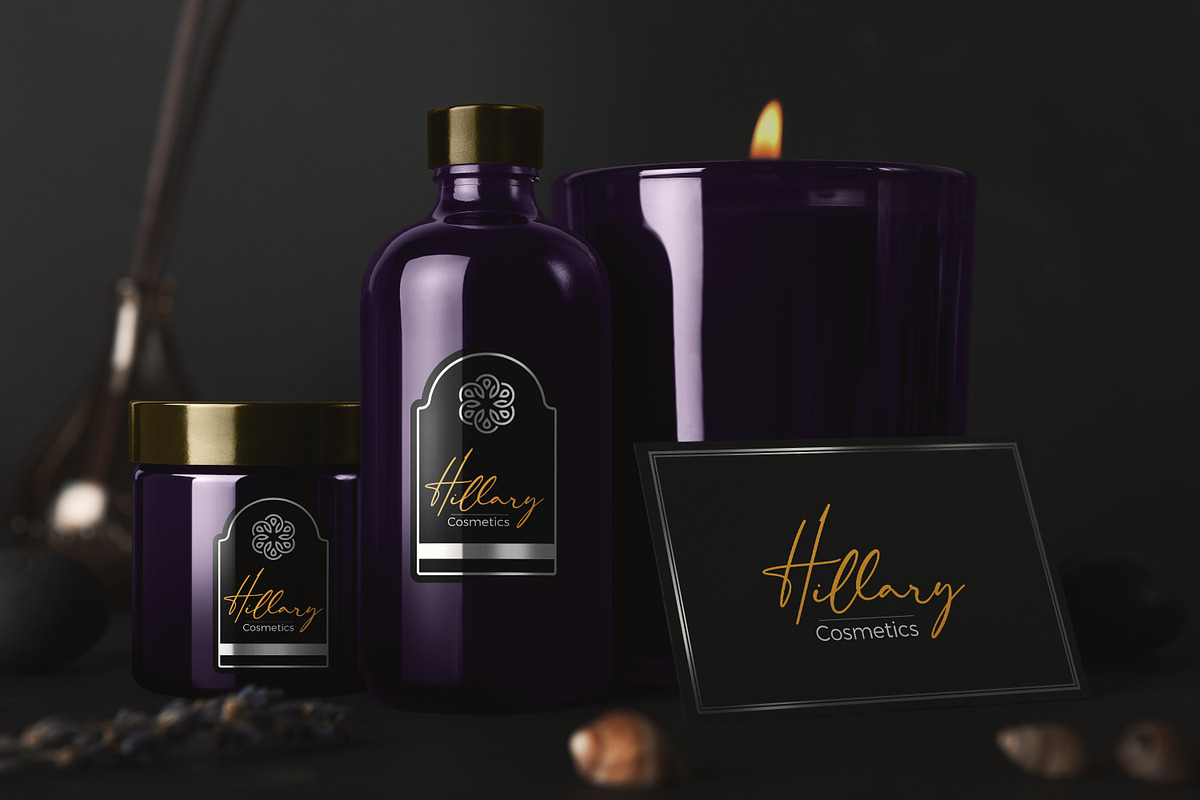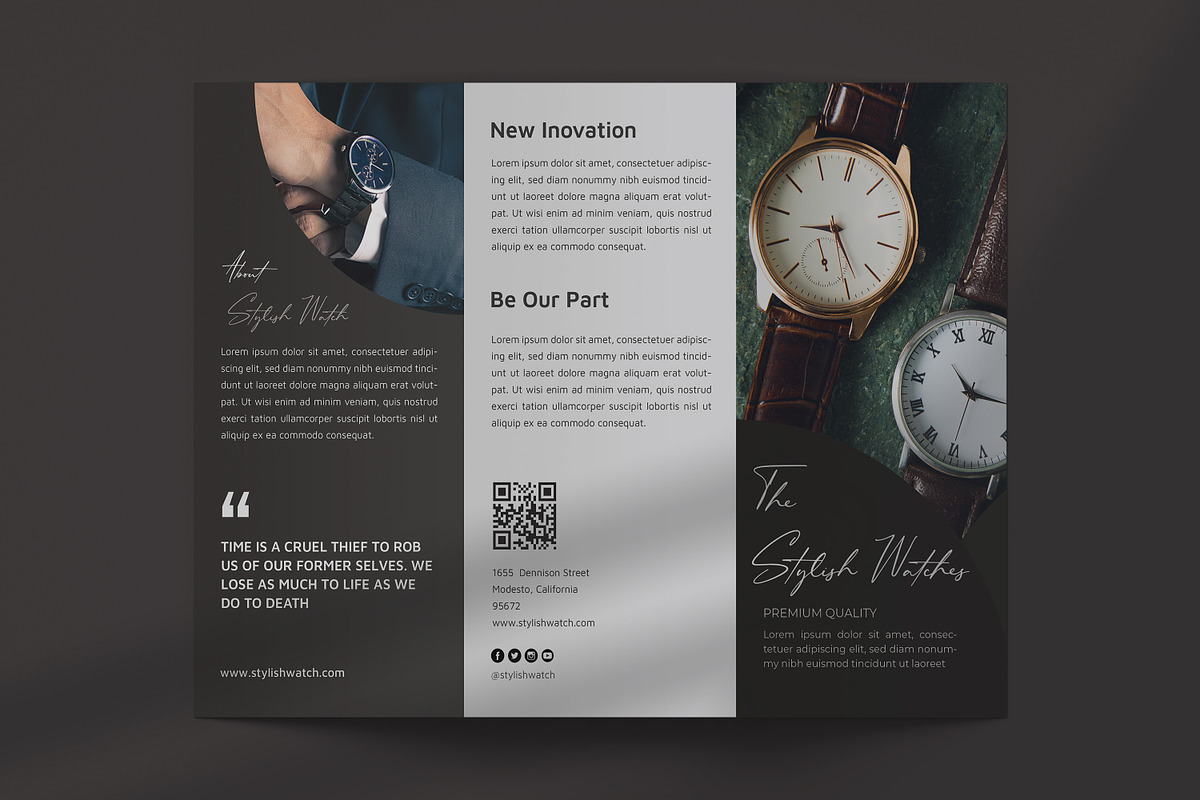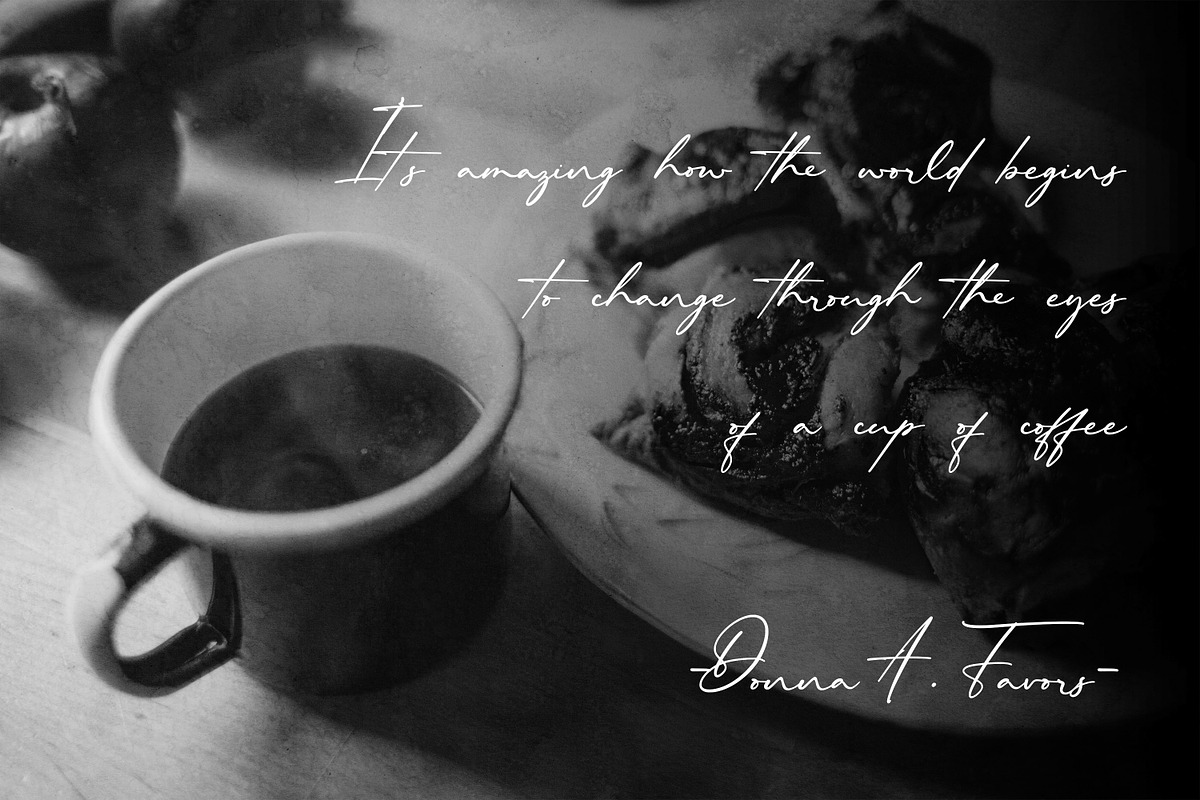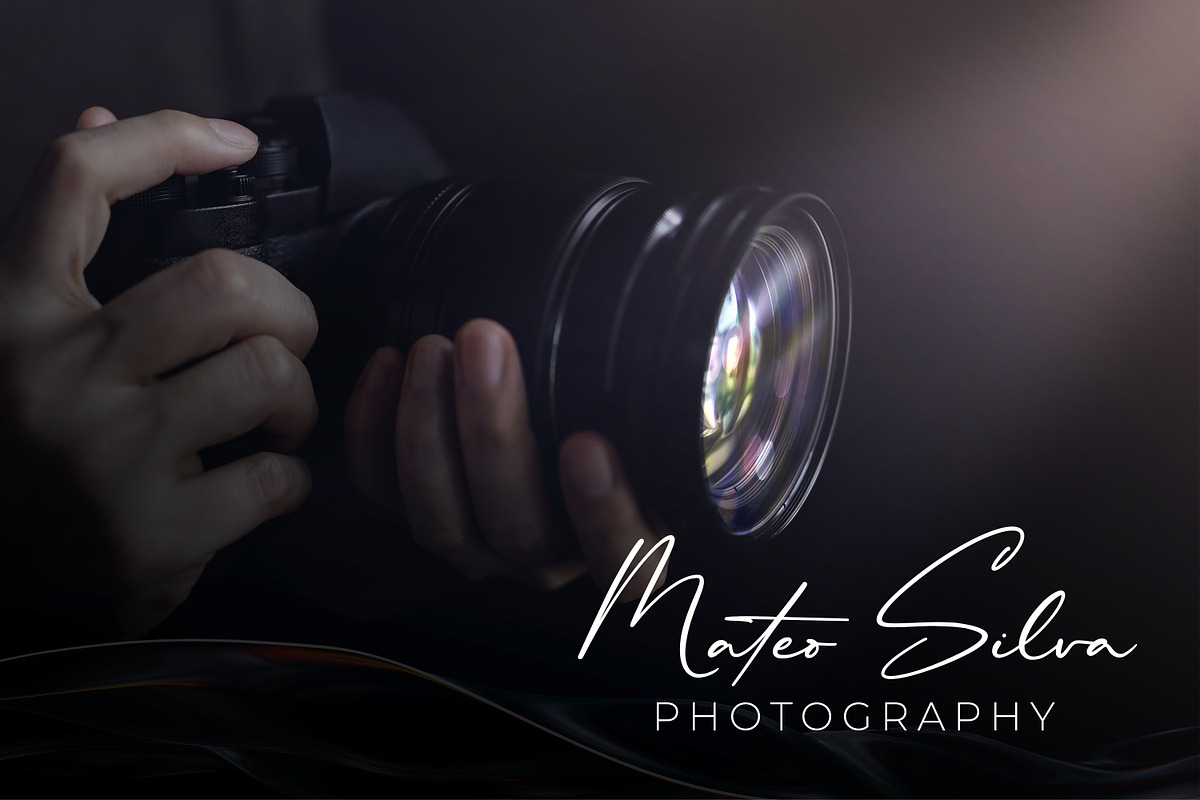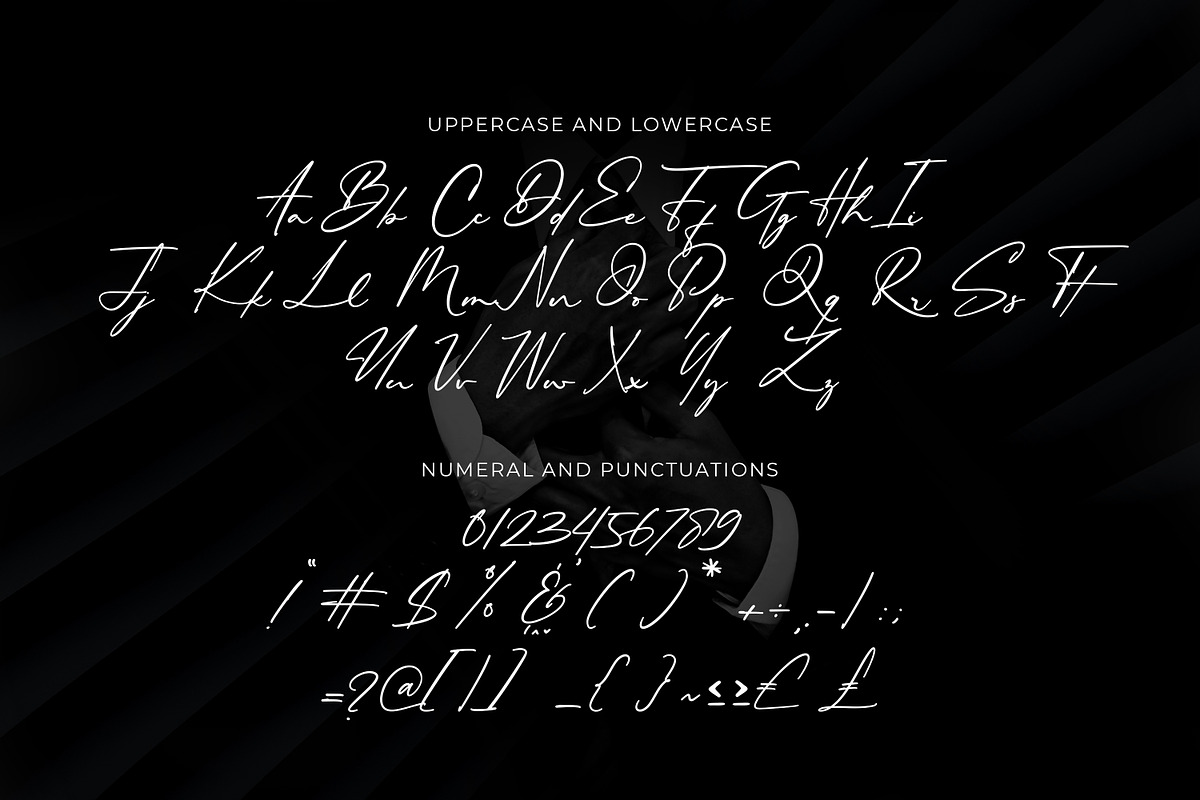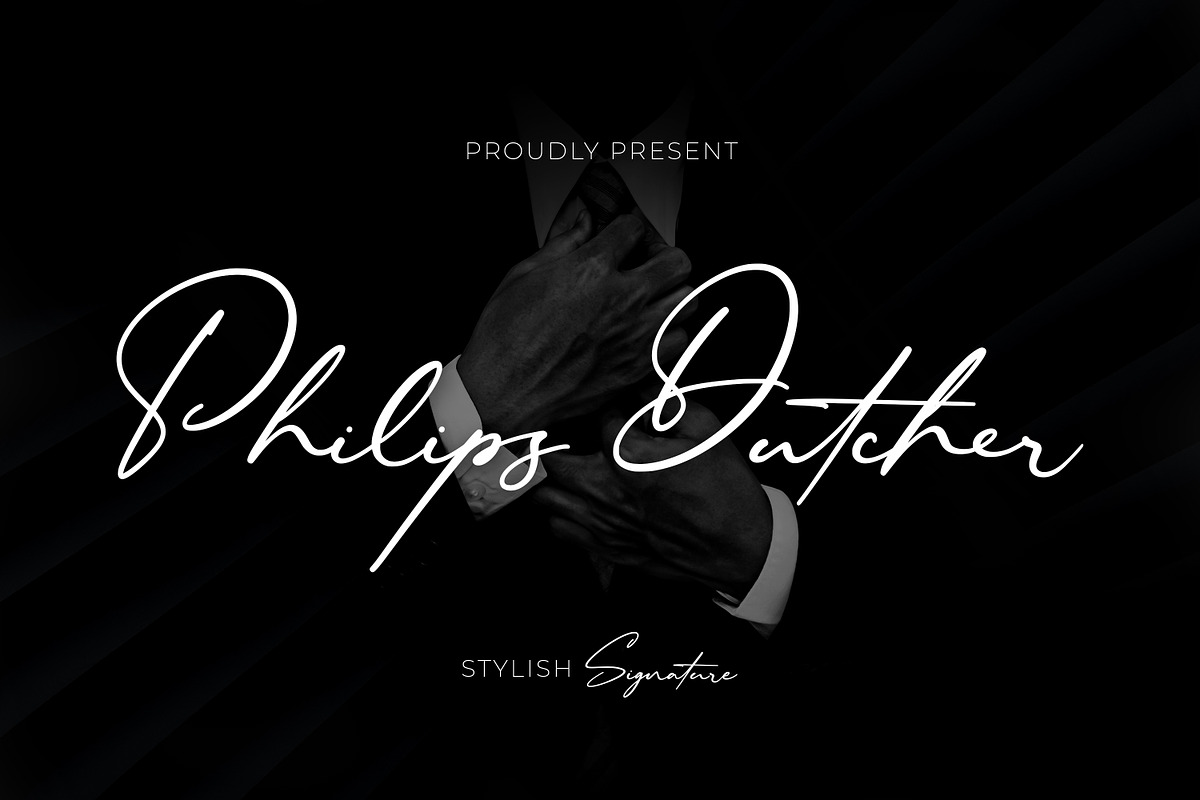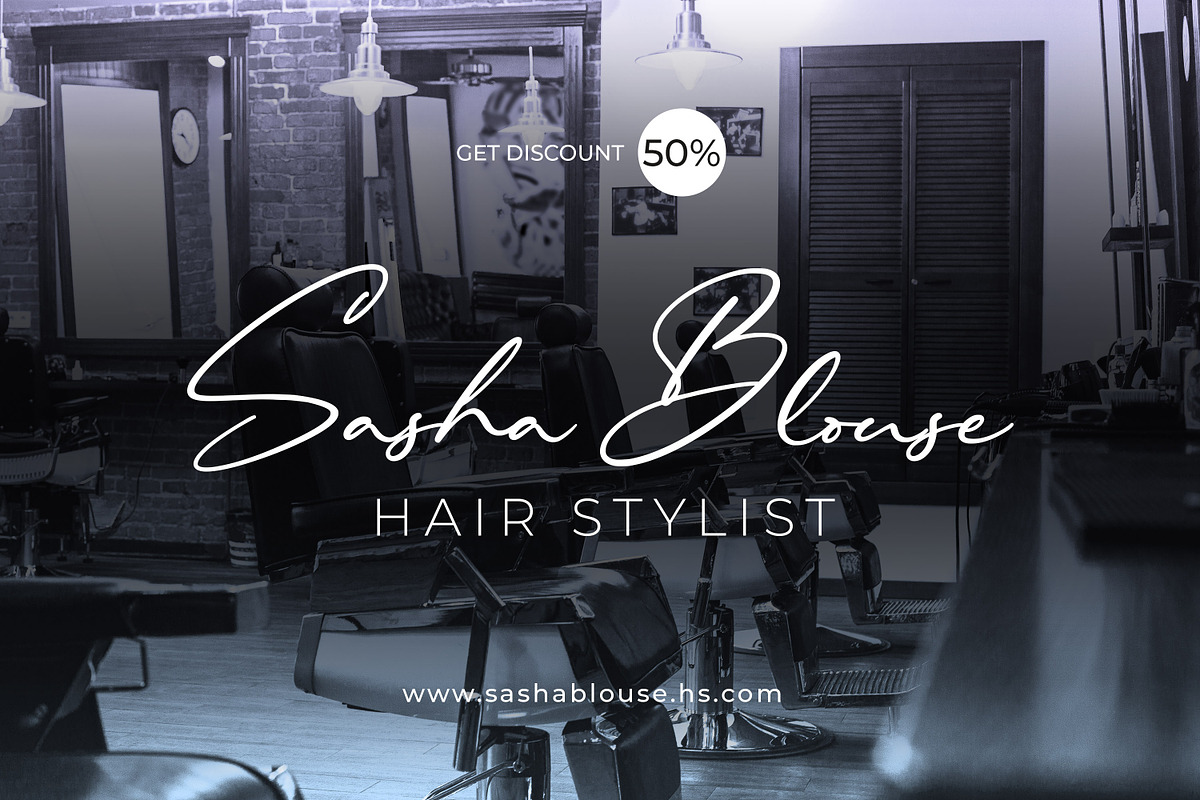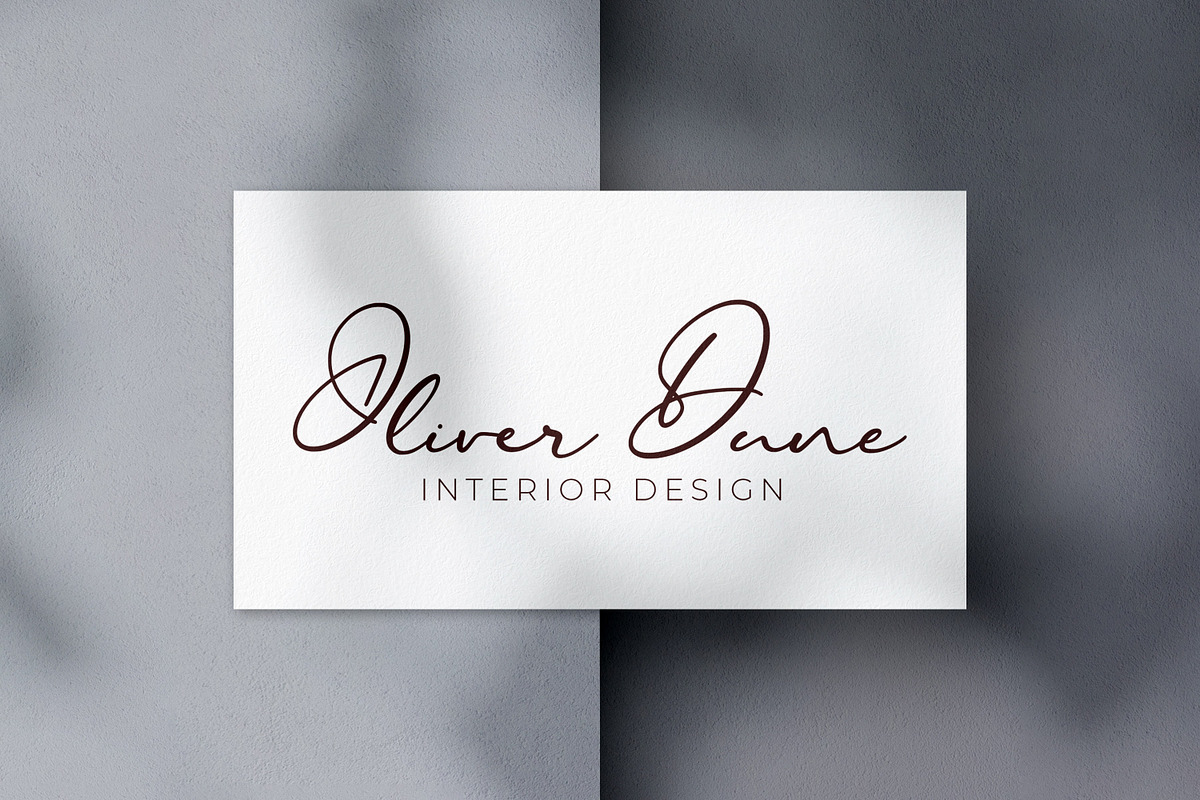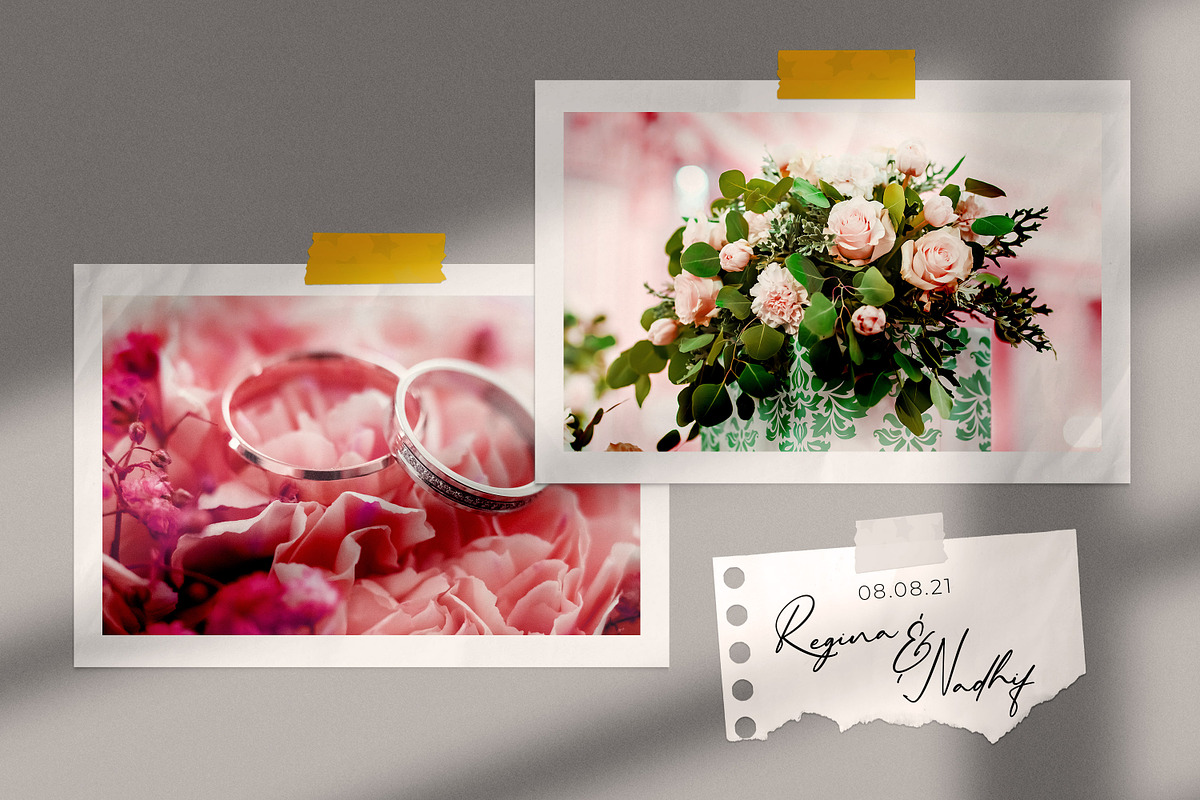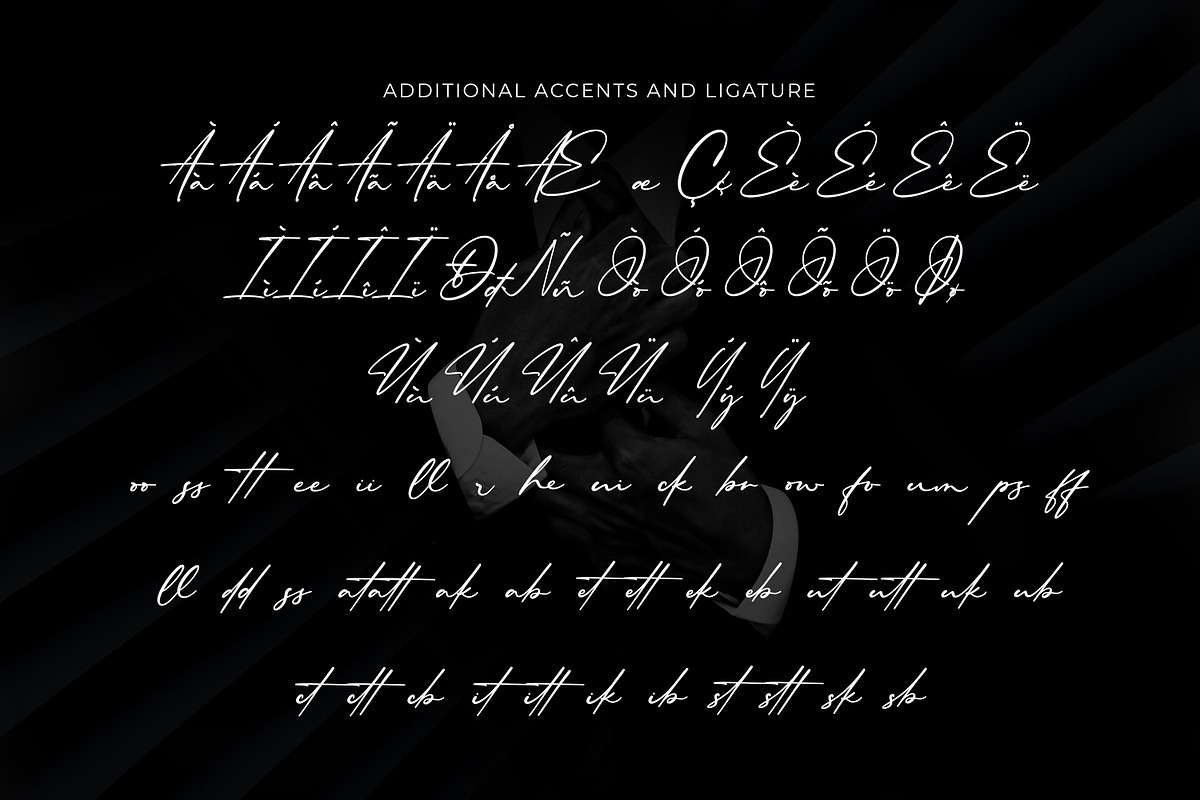
Philips Dutcher - Stylish Signature
Introducing Philips Dutcher - Stylish Ligature Script is a Quality script that is written casually and quickly with 41 ligature. Letters are made with Sign on paper. Then scanned and carefully drawn into vector format.
Philips Dutcher is perfect for homeware designs,branding projects, Logo, design, Quotes, Product packaging, Photography, Watermark
- Alternate glyphs